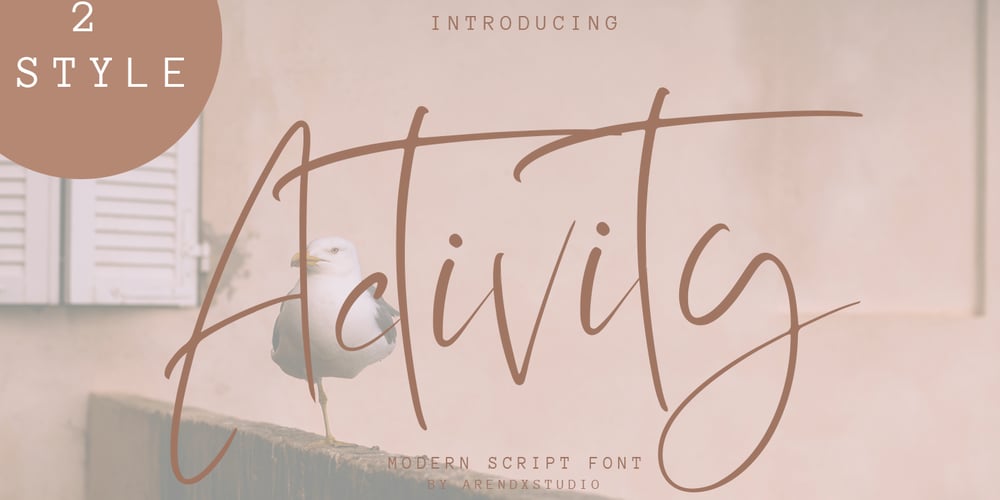
Activity Font Family was designed by Asep Rendi and published by Arendxstudio. Activity contains 2 styles and family package options. Activity is an energetic hand styled script. It is beautiful for wedding card design, logotype, website headers, fashion design and much more. It includes multi-lingual and swash characters. There it is! I really hope you enjoy it – comments and likes are always welcome and accepted. More importantly, don’t hesitate to send a message if you have a problem or question. Now just read this, go there and make it happen 🙂